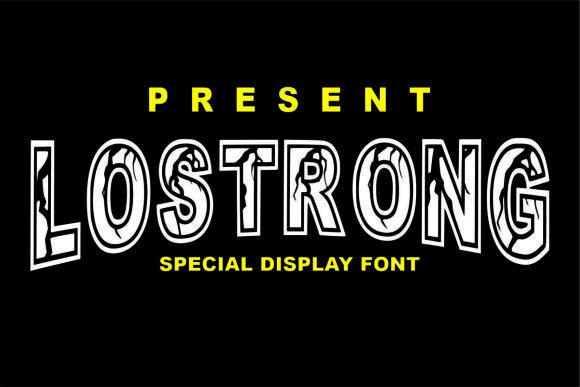
Journey into the realm of captivating typography with Lostrong, an enchanting display font brimming with strength and courage. Inspired by the allure of horror and mystery, this font exudes an aura of intrigue that will leave your designs spellbound.
With its bold and commanding presence, Lostrong demands attention, making it the perfect choice for daring and unconventional designs. Its intricate details and sharp edges evoke a sense of power and determination, inviting you to explore the depths of your creativity.
Unleash the boundless potential of Lostrong and watch as your designs transform into masterpieces. Picture your brand identity adorned with this captivating font, leaving an indelible mark on the minds of your audience. Craft eye-catching logos that command attention, T-shirts that exude individuality, backgrounds that transport viewers to another realm, and more.
Lostrong is a font that knows no bounds, adapting effortlessly to a myriad of creative endeavors. Whether you're a seasoned designer or just starting your artistic journey, this font is your gateway to unlocking extraordinary design possibilities.
Embrace the mystique of Lostrong and let your imagination run wild. This font is your passport to a world of limitless creativity, where boldness meets beauty and strength meets elegance. Don't settle for ordinary fonts; choose Lostrong and unleash the extraordinary.